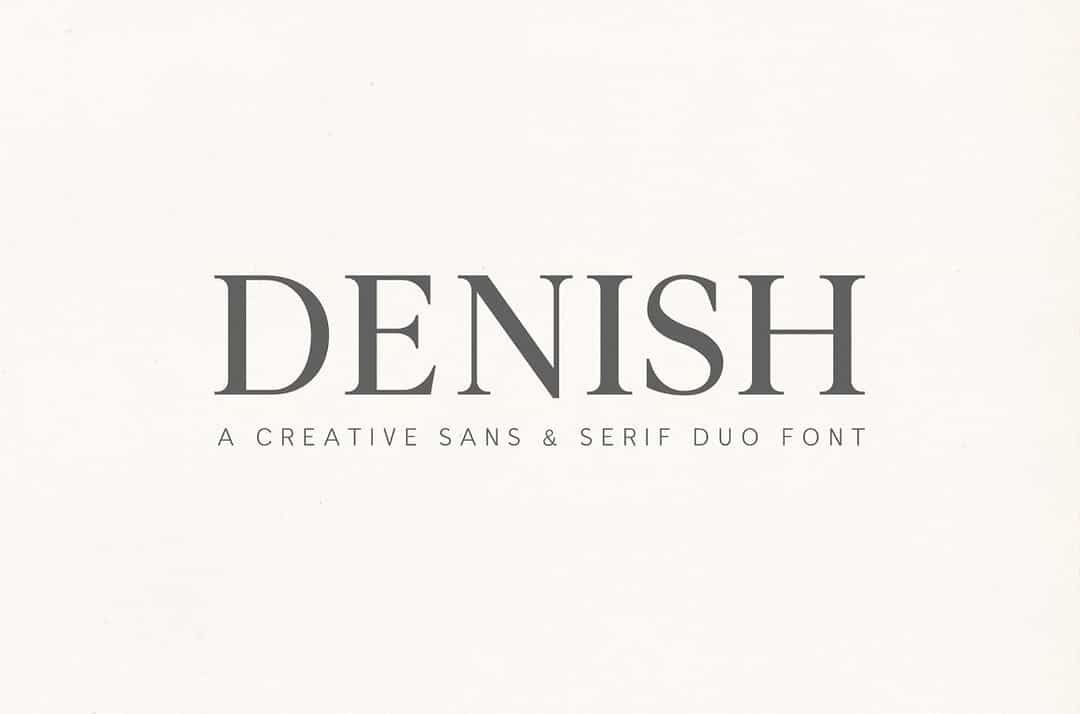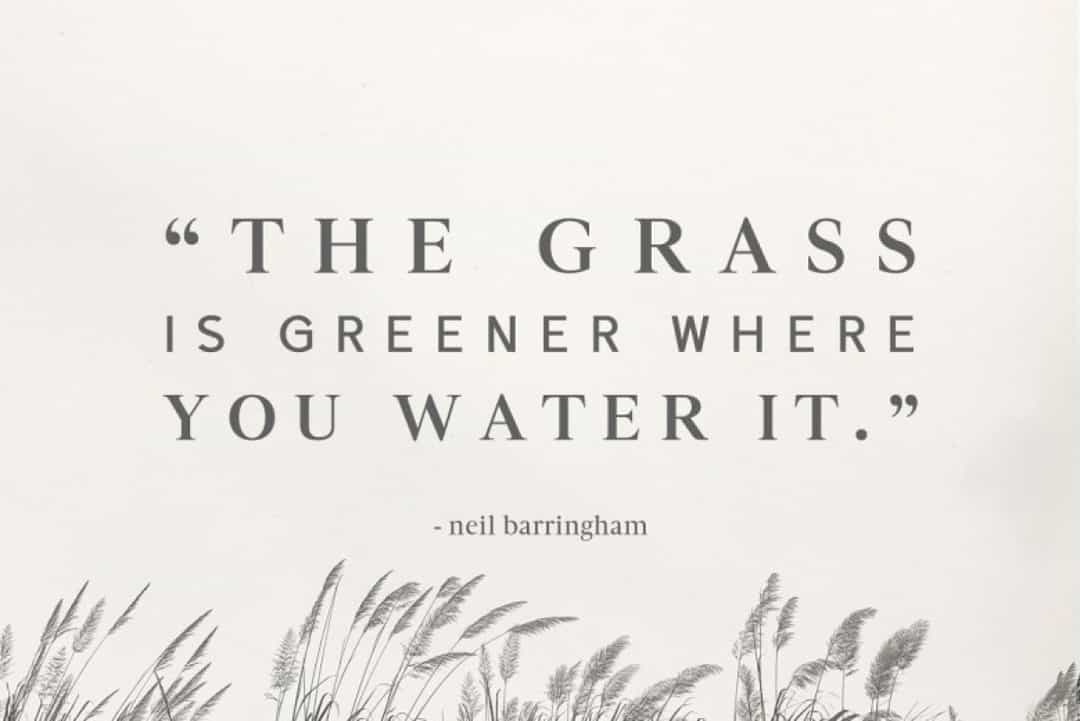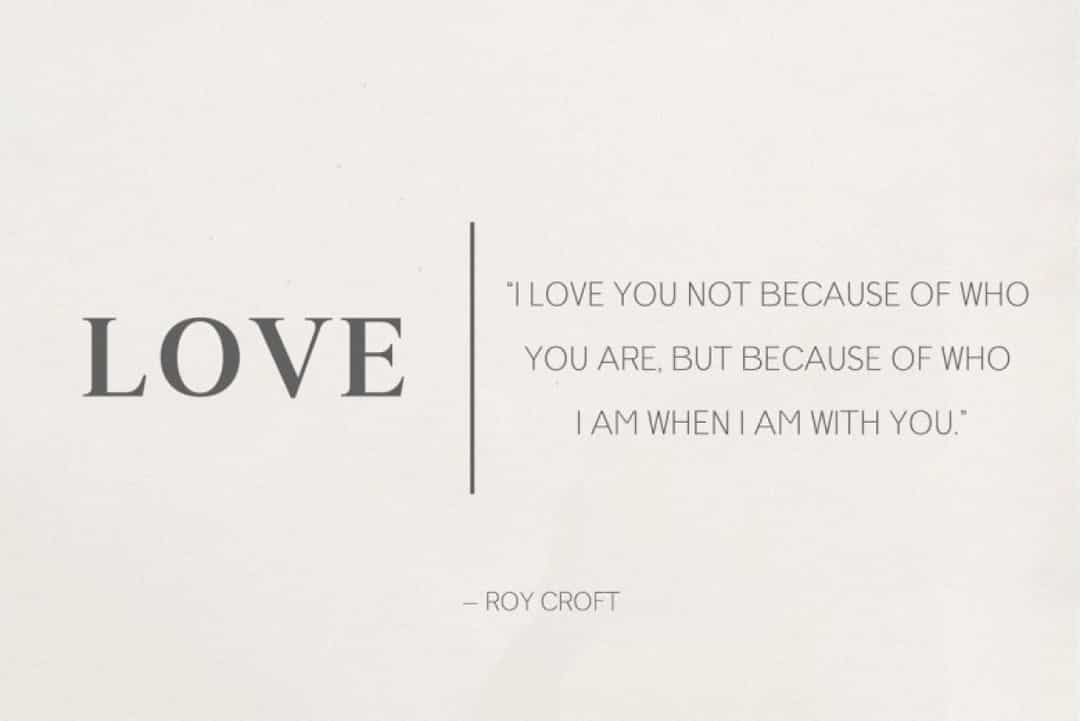
Denish is an elegant serif and sans serif font pair designed to add unique and modern charm to your designs. Featuring lowercase punctuation, numbers, symbols as well as non-english characters it makes a wonderful pair. Denish is ideal for greeting cards, posters and stationery designs as well as magazine layouts, stencils and stickers.